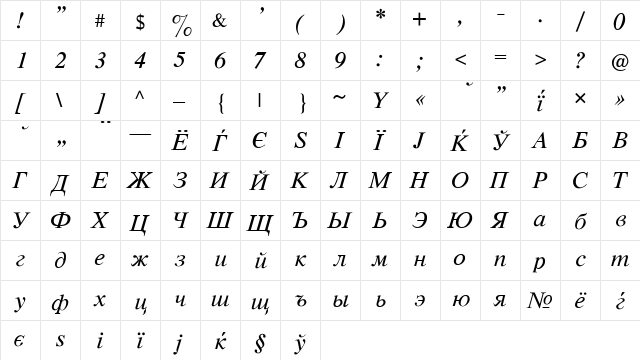
CyrillicTimes Italic Font Preview
CyrillicTimes Italic
CyrillicTimes Italic Font Details
Design Context for CyrillicTimes Typeface
CyrillicTimes takes a measured approach to typography — its balanced proportions and neutral character make it a reliable workhorse for both digital and print work. The slanted form adds forward momentum and visual energy.